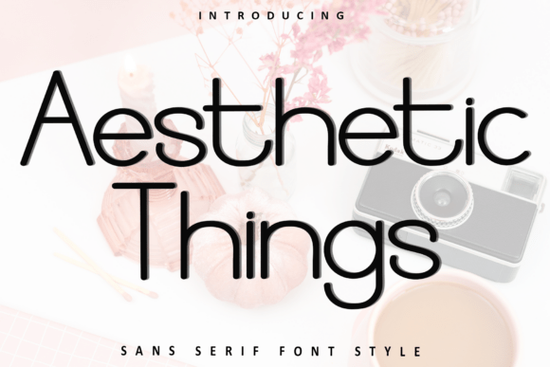
The Aesthetic Things Font is a festive decorative typeface designed for holiday cards, gift tags, seasonal branding, and cheerful creative projects. If you're looking for a typeface that brings warmth and a nostalgic holiday feel to your work, this one delivers it with whimsical letterforms and ornamental details. It's also PUA encoded, so every glyph and ligature is easy to access without extra software.
What Makes Aesthetic Things Font Stand Out?
Plenty of holiday fonts look generic or overly cartoonish. Aesthetic Things Font takes a different approach. It blends decorative flourishes with clean readability, so your text still looks polished even at smaller sizes. The letter shapes have a hand-lettered quality that feels personal not like a template everyone else is already using.
For designers working on seasonal campaigns, this kind of balance matters. You want something festive without sacrificing legibility. The ligatures and alternate glyphs give you flexibility to customize headlines, monograms, and short phrases in ways that feel unique to each project.
Who Is This Font Best For?
This typeface works well for a range of creative professionals and hobbyists:
- Greeting card designers who need a merry, celebratory look for Christmas, New Year, or winter-themed collections
- Print-on-demand sellers creating seasonal merchandise like mugs, tote bags, and apparel
- Small business owners designing holiday promotions, sale banners, or packaging
- Crafters making gift tags, scrapbook pages, or party invitations
- Social media managers who want festive typography for December campaigns
If your audience expects warmth and charm in your visuals, a well-crafted decorative typeface like this one does the heavy lifting.
How Does It Compare to Other Decorative Fonts?
There are many festive typefaces on the market, but not all of them are designed with the same attention to detail. Some sacrifice readability for ornamentation. Others look beautiful in previews but fall apart when you scale them for print.
The Aesthetic Things typeface holds up well across different sizes and applications. It pairs nicely with simpler sans-serif body text, which is important if you're building a full layout. For comparison, you might also explore the Matters typeface if you want a cleaner companion font for body copy, or check out the Campus typeface for a more casual pairing option.
If you prefer something with sparkle and extra decorative energy, the Bright Sparkle typeface offers a similar festive mood with a different visual personality. Each of these has its own strengths depending on your project needs.
What Does PUA Encoding Mean for You?
If you've ever downloaded a font and couldn't figure out how to access the fancy swashes or alternate characters, PUA encoding solves that problem. It means every glyph including special ligatures and stylistic alternates is mapped to a Private Use Area code point. You can access them through any character map tool, even in basic design software that doesn't support OpenType features natively.
This is especially useful for crafters using Cricut Design Space or Silhouette Studio, where OpenType support can be limited. With PUA-encoded fonts, you get the full character set without workarounds.
Best Uses for Holiday Design Projects
Here are a few practical ways to put this font to work:
- Greeting cards Use it for headline text or a single impactful word like "Joy" or "Noel"
- Gift tags Short phrases and names look great in this style
- Social media graphics Pair it with seasonal photos for Instagram or Pinterest
- Product packaging Add a festive touch to boxes, labels, and wrapping paper designs
- Website banners Holiday sale announcements get an instant mood boost
- Party invitations Set the tone for holiday gatherings with cheerful typography
For longer blocks of text, combine it with a simple serif or sans-serif font. The contrast keeps your layout balanced and easy to read.
Tips for Getting the Most Out of This Typeface
- Use it at larger sizes Decorative fonts like this shine in headlines and display text, not in paragraphs
- Pair it with neutral fonts A clean sans-serif body font lets the decorative style stand out without overwhelming the reader
- Explore alternate glyphs Since it's PUA encoded, experiment with swashes and ligatures to make each design feel custom